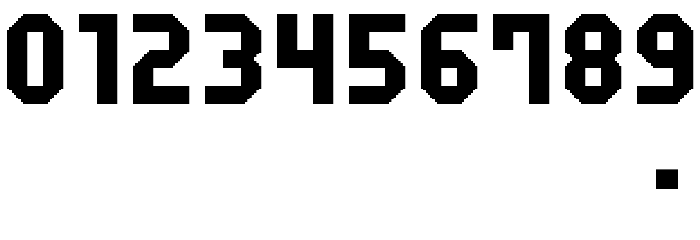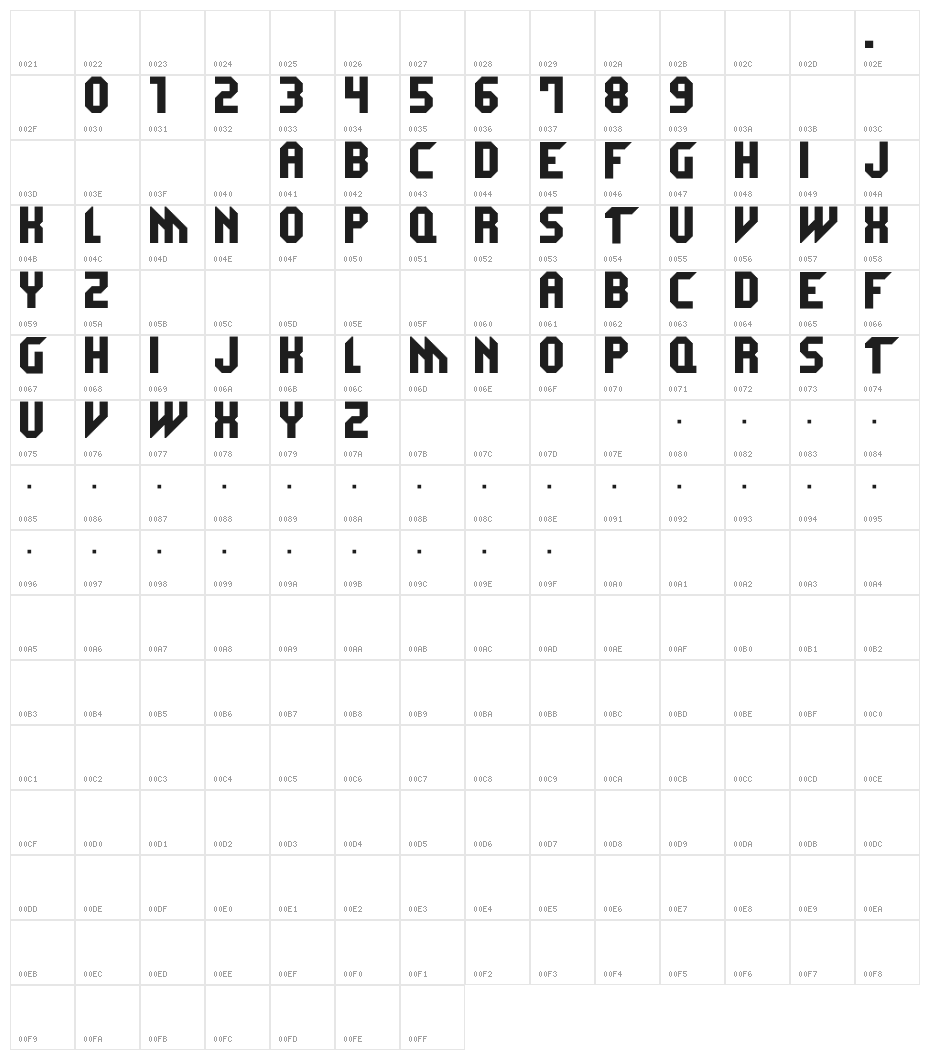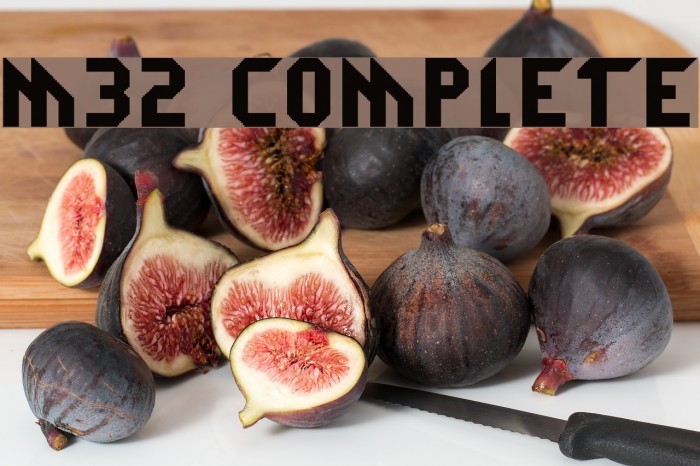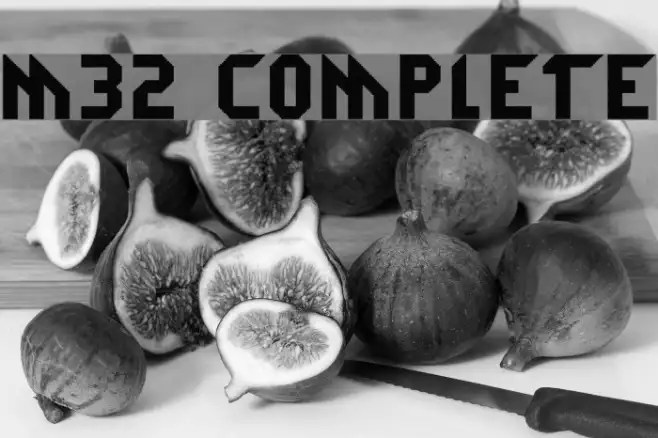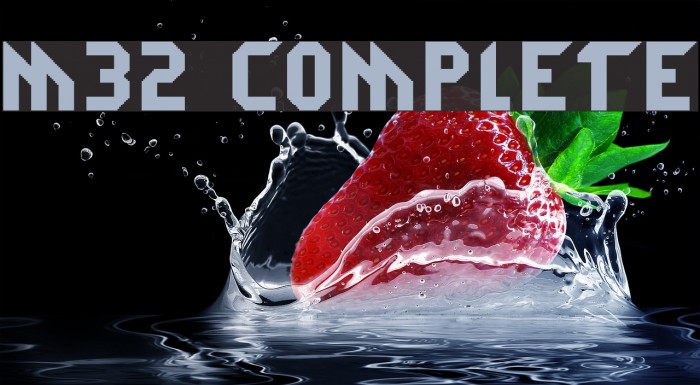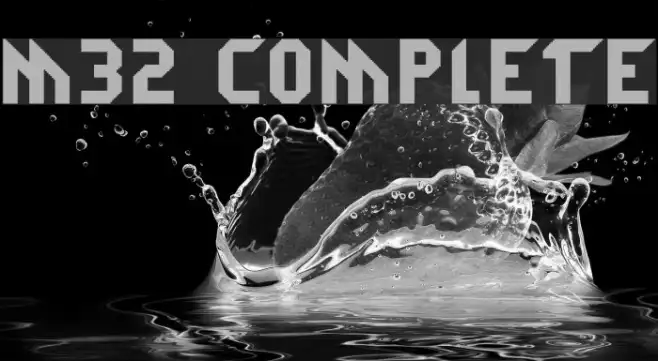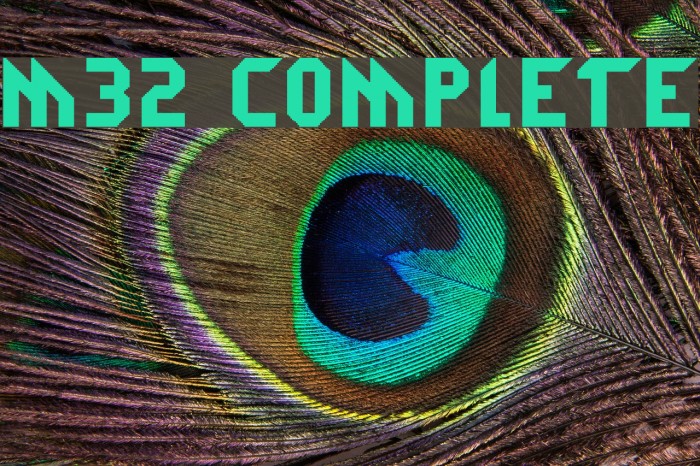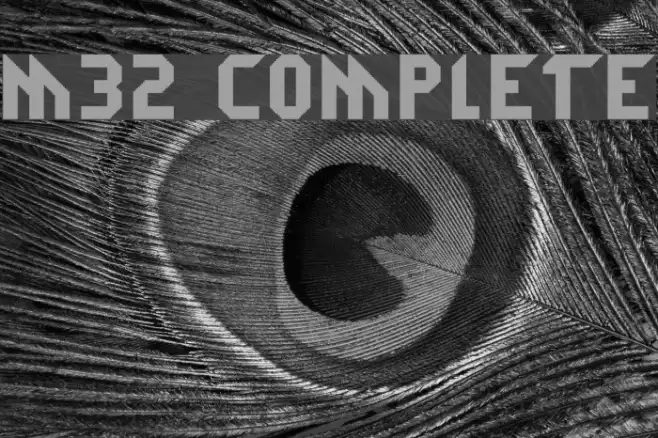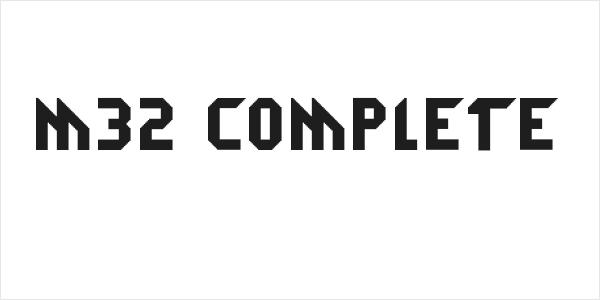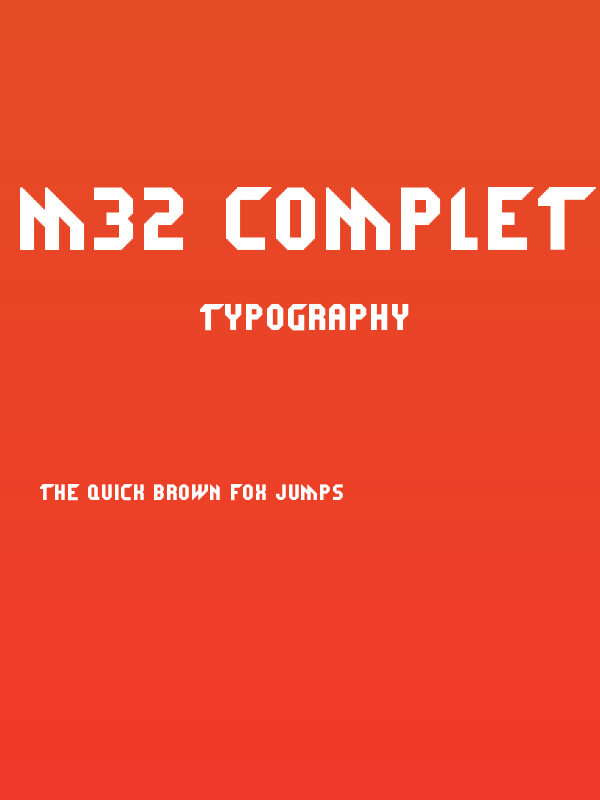
M32_COMPLETE Font
M32_COMPLETE Description
This font features a bold, geometric design with sharp angles and a strong presence. The characters are constructed with a consistent thickness, giving them a blocky and robust appearance. The uppercase letters are particularly striking, with angular cuts that create a dynamic and modern look. The numbers follow the same design principles, ensuring uniformity across the font. This style is reminiscent of digital or futuristic themes, making it ideal for projects that require a bold and assertive typeface.
| Proposed Projects | Ideal for video game titles, tech branding, futuristic posters, and digital interfaces. |